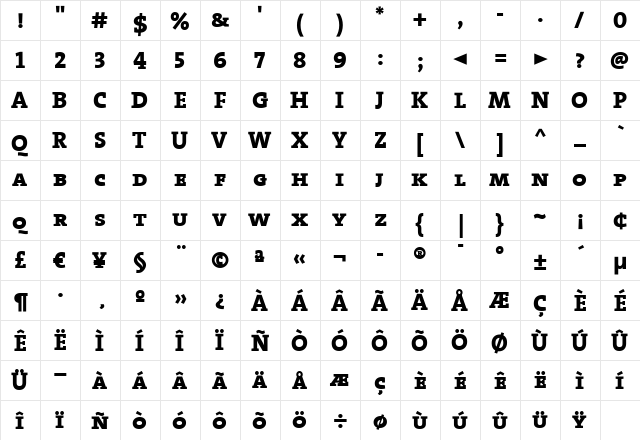
TheSerif ExtraBold Font Preview
TheSerif ExtraBold
TheSerif ExtraBold Font Details
| Style | ExtraBold |
| Foundry | Copr. Luc as de Groot |
| Copyright | Copr. Luc as de Groot 1994 |
Design Context for TheSerif Typeface
TheSerif carries the refined structure of traditional serif typography, with bracketed terminals and considered proportions that communicate credibility and craft. The heavy weight commands attention and anchors typographic hierarchies.